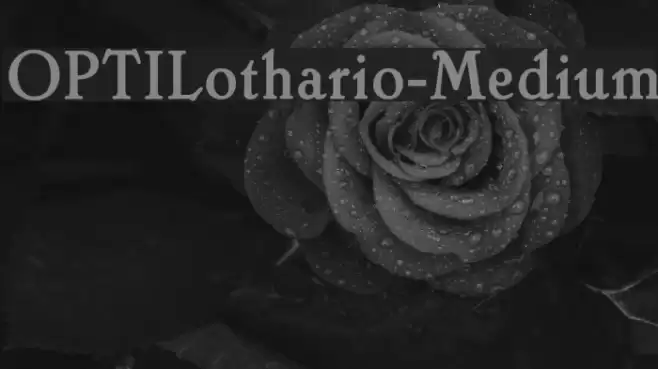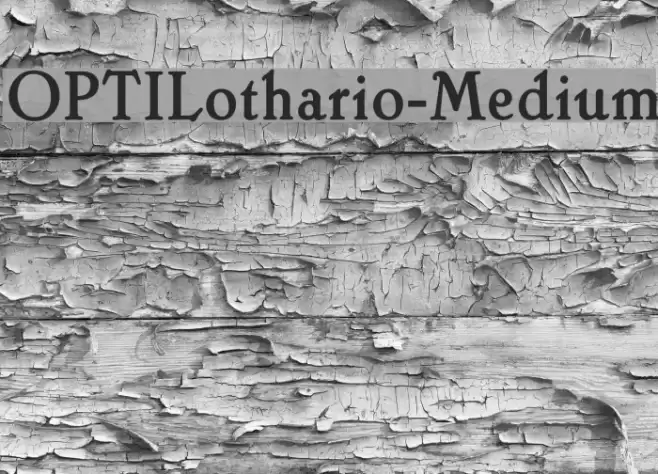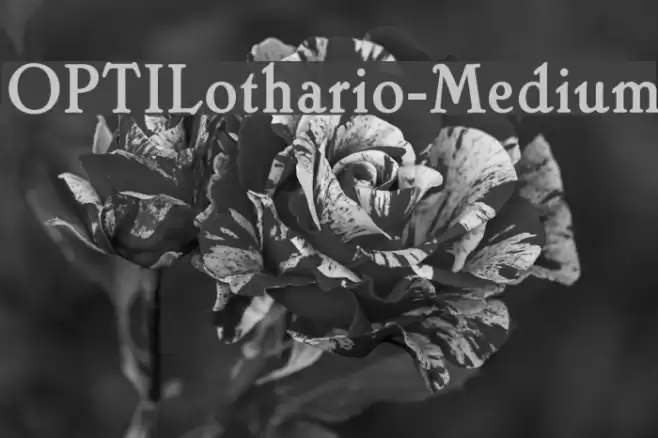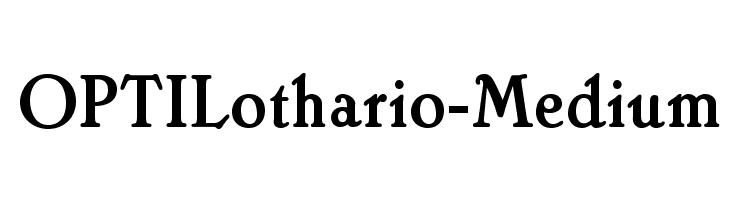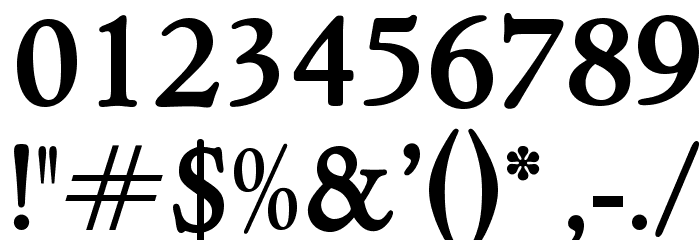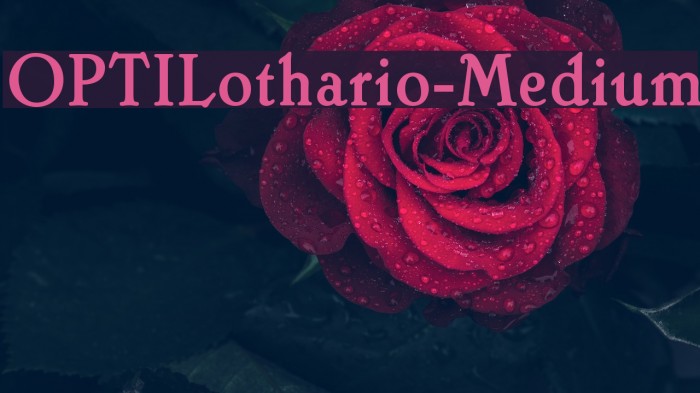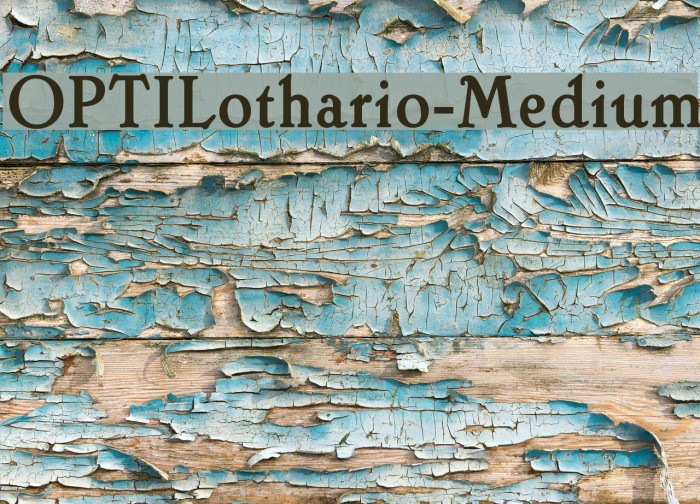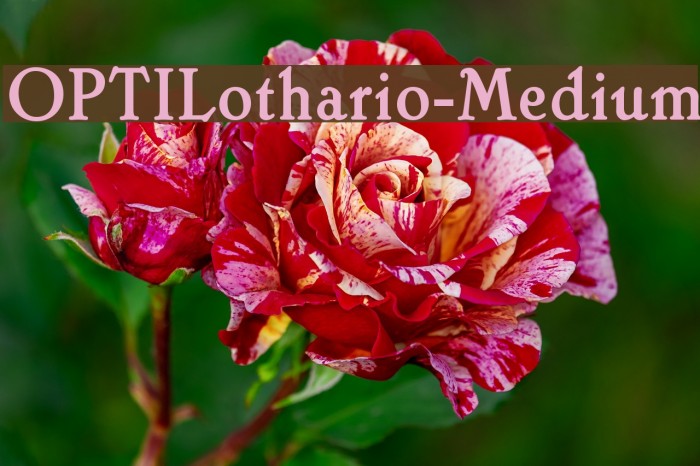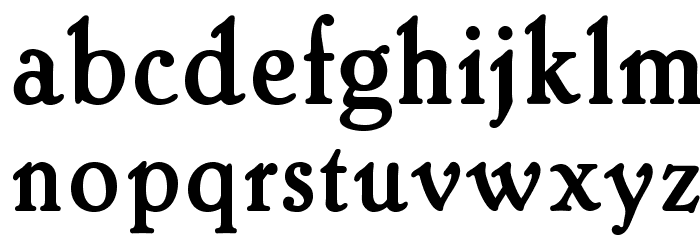
OPTILothario-Medium Font
OPTILothario-Medium Description
This font features a classic serif style with elegant curves and a medium weight that provides a balanced and readable appearance. The uppercase letters are bold and commanding, while the lowercase letters maintain a smooth and consistent flow. The numerals are clear and distinct, making them suitable for both text and numerical data. Special characters are well-defined, enhancing the font's versatility. The overall design exudes a timeless quality, making it suitable for a variety of applications.
A classic serif font with elegant curves and medium weight from Uncategorized fonts.
- Proposed Projects: Ideal for book covers, editorial design, formal invitations, and branding projects that require a touch of elegance and tradition.
- Overall Style: Classic